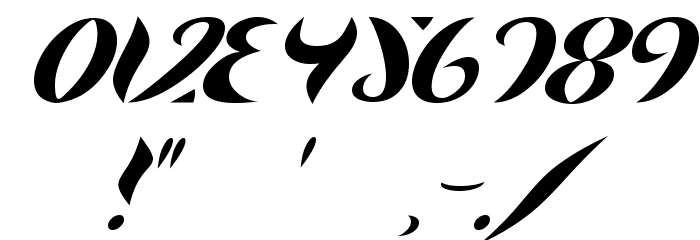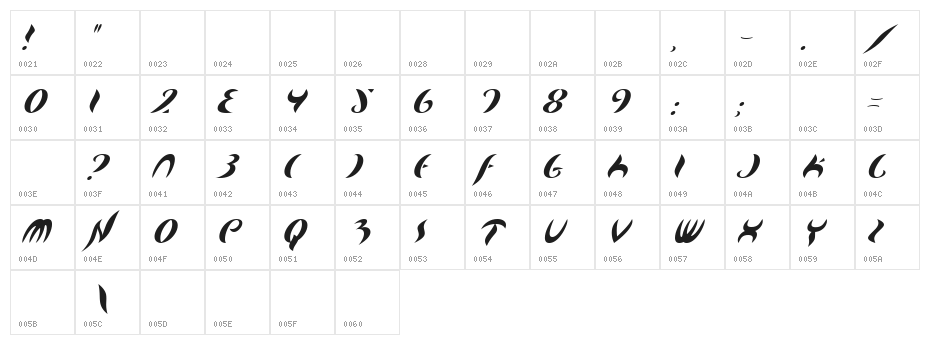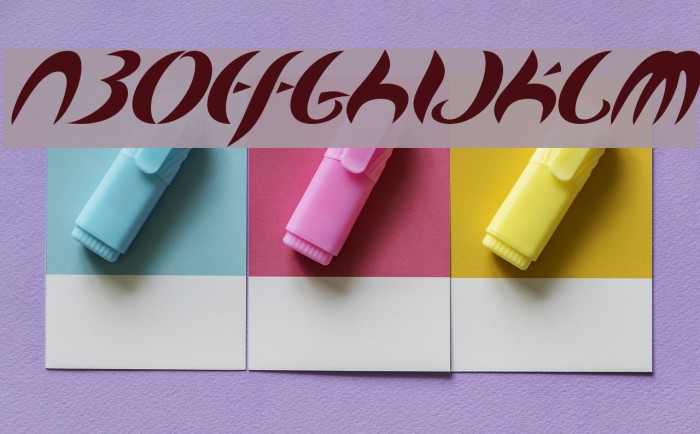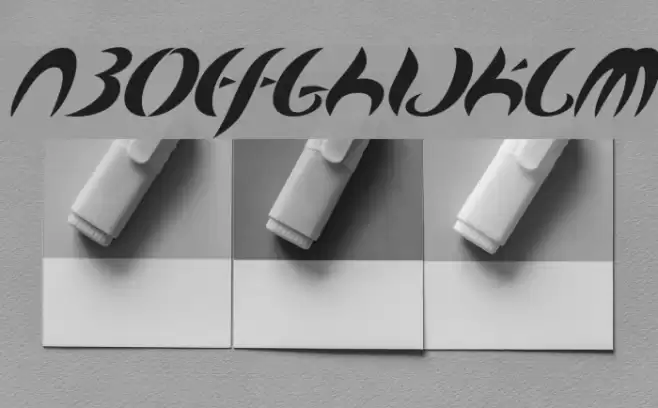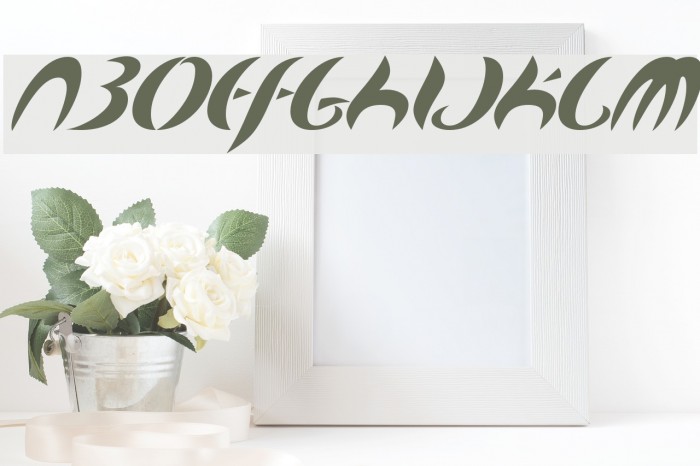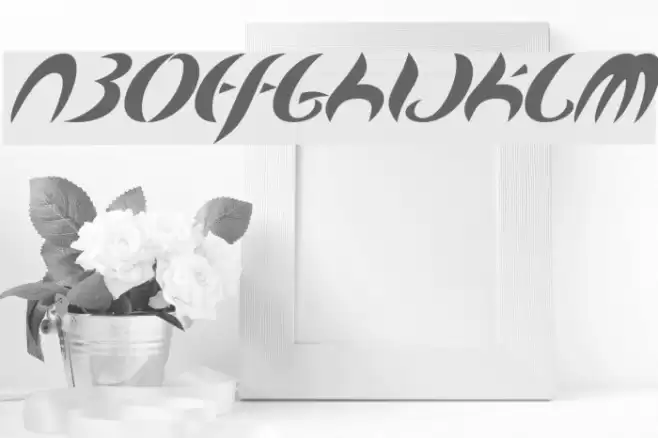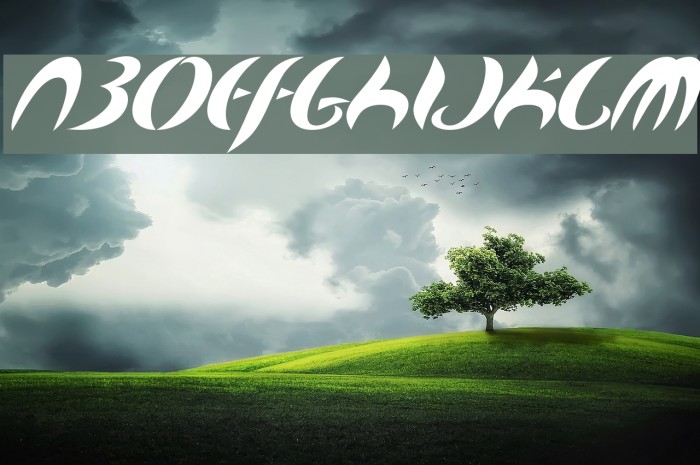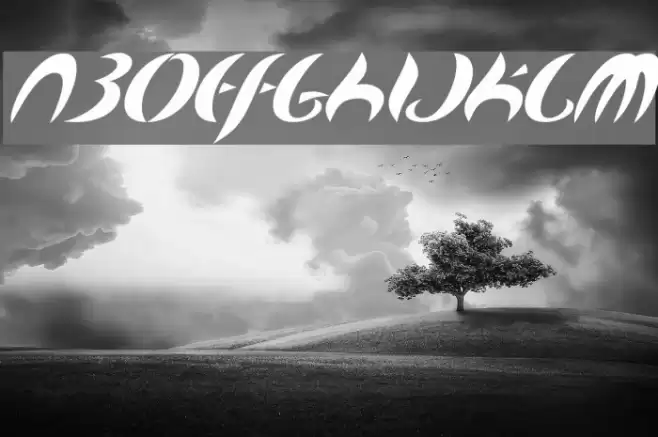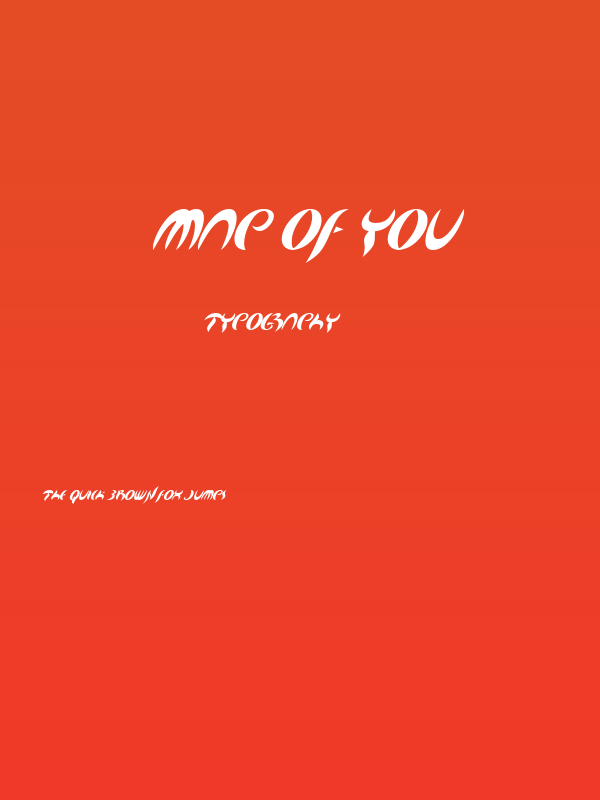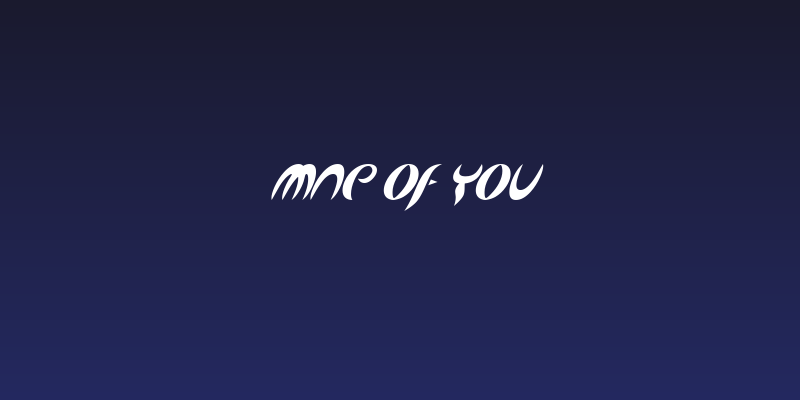
Map Of You Font
Map Of You Description
This font features a highly stylized and artistic design, characterized by its fluid and dynamic strokes. The letters have a unique, almost calligraphic flair, with bold, sweeping curves and sharp, pointed edges. The overall appearance is both elegant and dramatic, making it stand out as a decorative choice. The uppercase and lowercase letters maintain a consistent style, with the numerals and special characters following suit. This font's intricate design suggests a sense of movement and energy, ideal for creative and expressive projects.
| Proposed Projects | Ideal for use in branding, posters, album covers, and artistic projects where a strong visual impact is desired. |